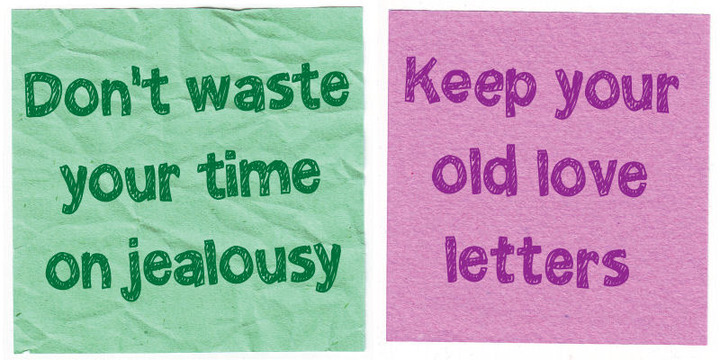
Elogy not just a scratchy basic sans serif font - it is a font with a lot of attitude! Every single character is unique! I personally drew every single character - meaning that accented letters are unique!
Elogy contains ligatures for both double lowercase, double uppercase and double numers!
On top of that, it has got alternate letters for both upper- and lowercase! Talk about unique! More…